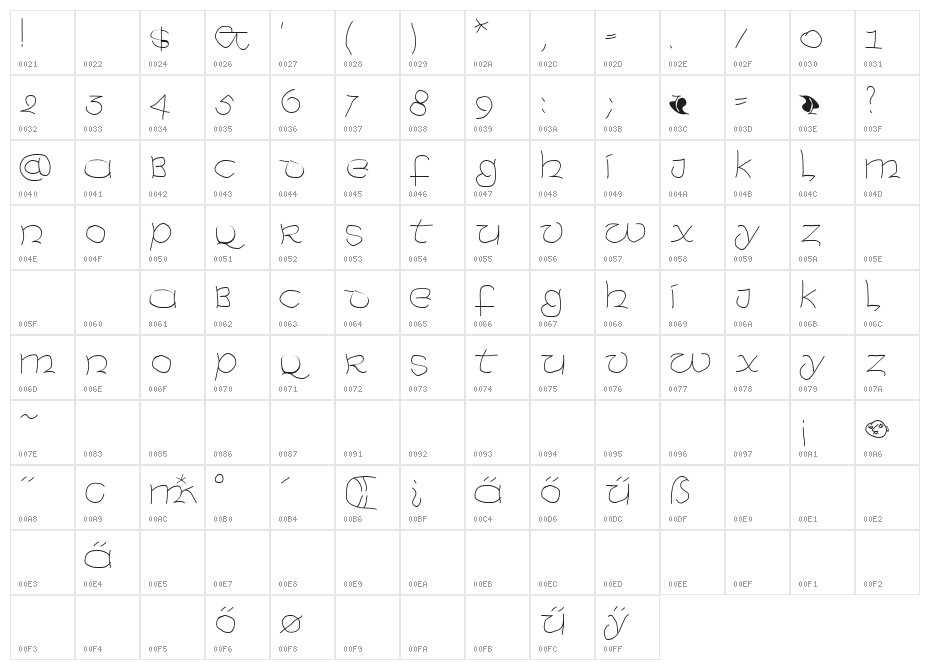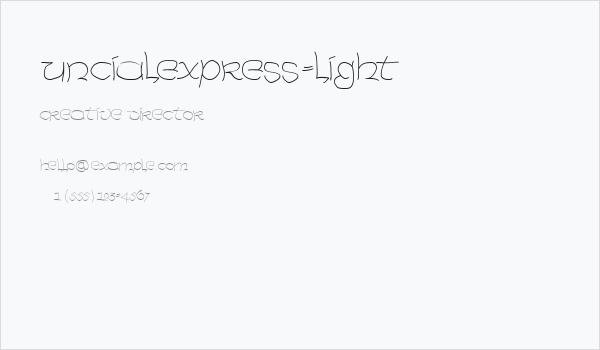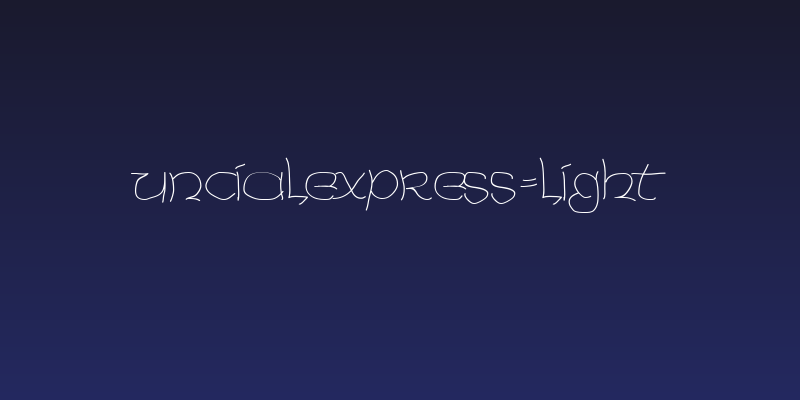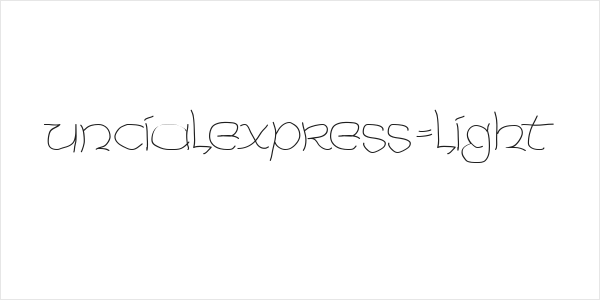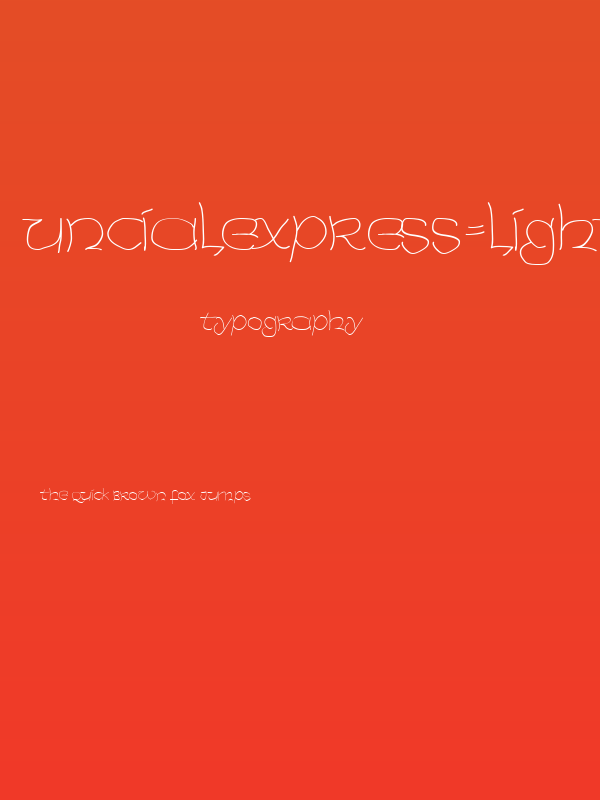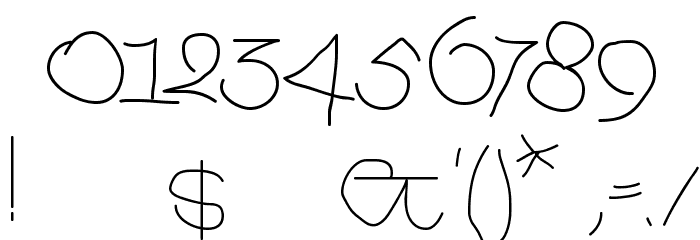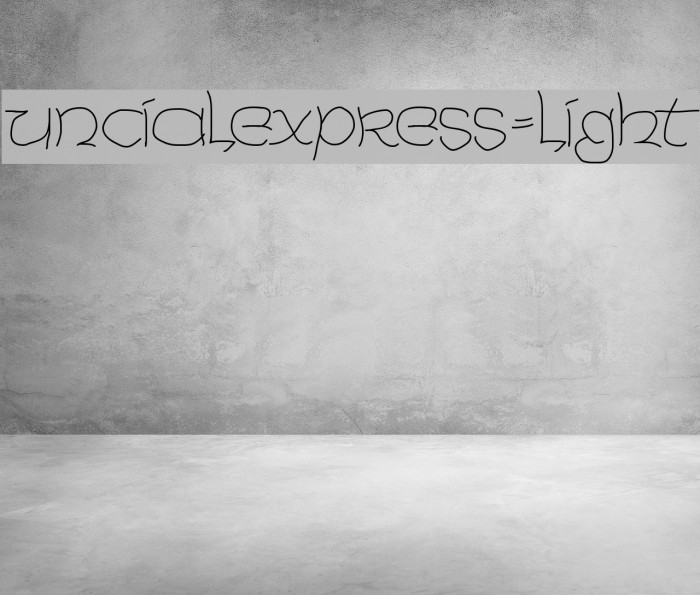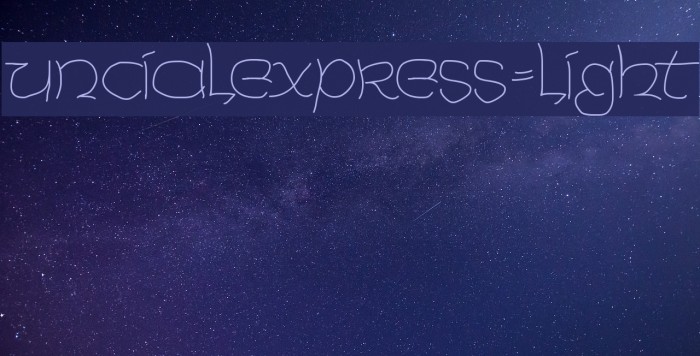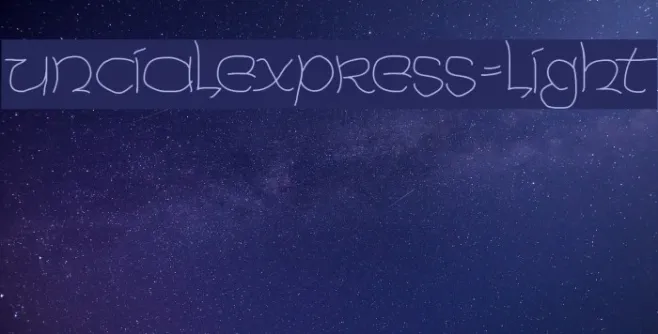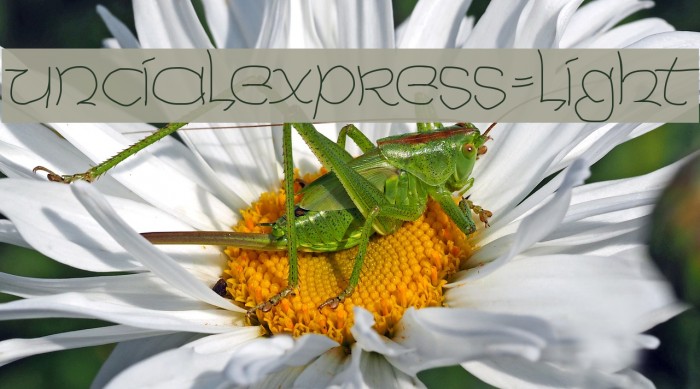
UncialeXpress-Light Font
This font features a unique and artistic design with a calligraphic influence, characterized by its flowing, interconnected strokes. The letters exhibit a distinct curvature, with some characters extending beyond their typical boundaries, creating a sense of movement and elegance. The overall appearance is both sophisticated and playful, making it suitable for creative projects. The numerals and special characters maintain the same stylistic approach, ensuring consistency throughout the typeface. Its light weight adds to the airy and delicate feel, making it ideal for decorative purposes.
| Proposed Projects | Ideal for invitations, greeting cards, artistic posters, and branding materials that require a touch of elegance and creativity. |